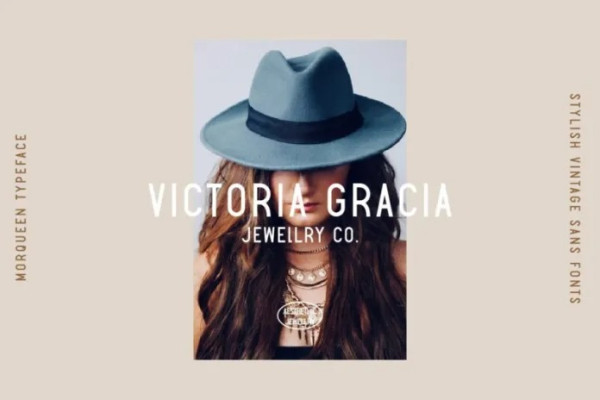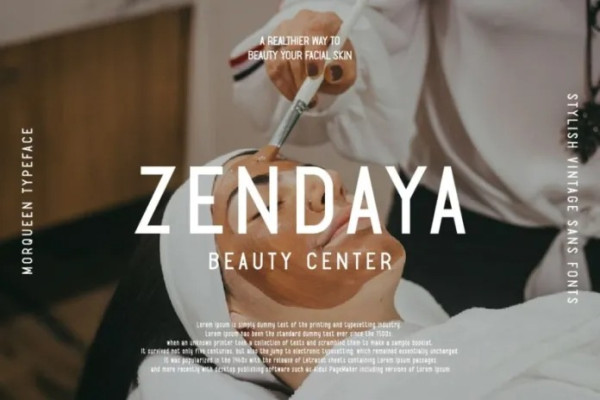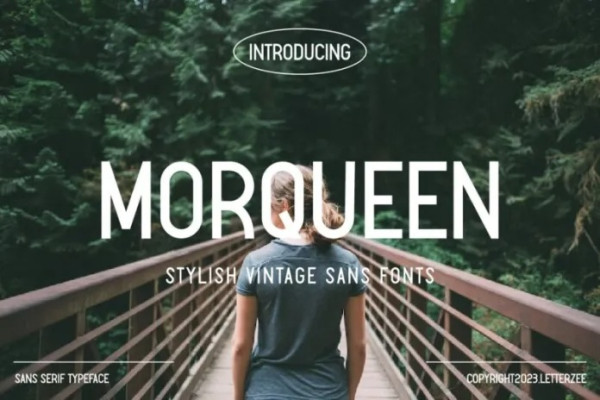
Morqueen Font
Morqueen Font is an original sans serif font that was improved with geometric shapes. Its distinct and well-balanced letters make this font a masterpiece. Morqueen is well suited as both a workhorse text and display font for branding, advertising, packaging, headlines, magazines, websites, logo designs, and more.